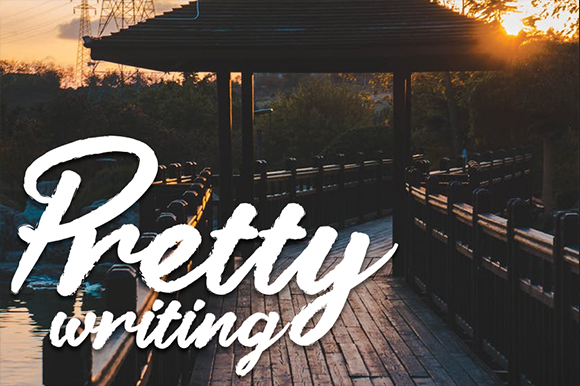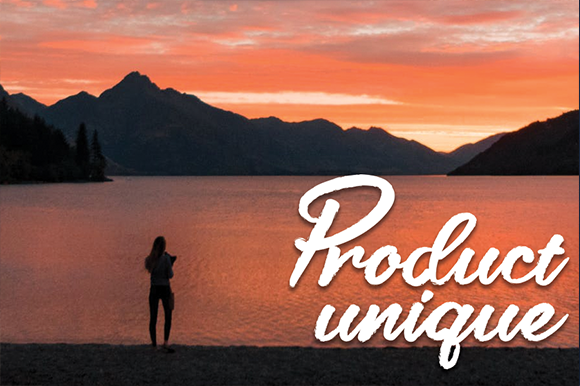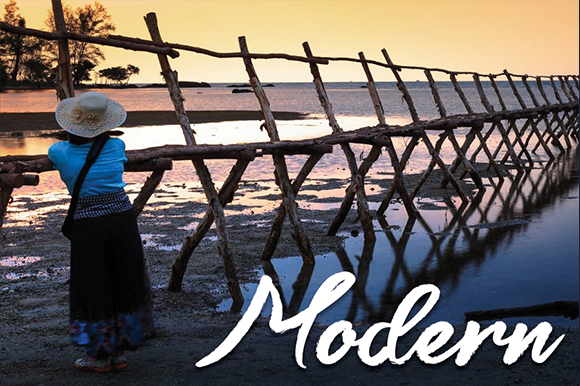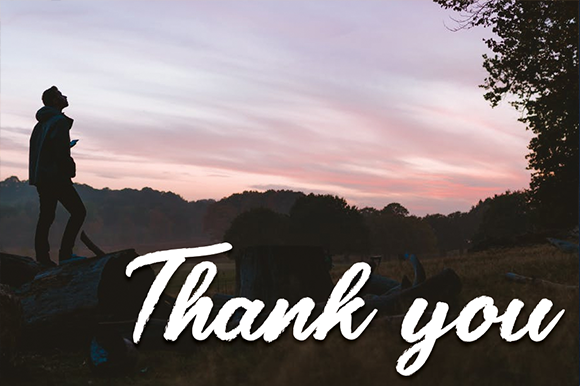
Introducing Brush Womens Font: The Perfect Blend of Casual and Quirky
Are you a designer or crafter looking for a font that embodies the perfect blend of casual and quirky? Look no further than Brush Womens Font! This delightful display font, created using a brush pen, is sure to add a touch of personality to your logos, branding, social media, and DIY projects.
What Makes Brush Womens Font So Special?
Brush Womens Font is a unique and eye-catching font that is both clean and quirky. Its casual, hand-brushed feel makes it perfect for projects that require a personal touch. Whether you’re creating a logo, social media graphics, or a crafty DIY project, this font is sure to make your work stand out.
Key Features of Brush Womens Font
- Hand-brushed feel: Brush Womens Font is created using a brush pen, giving it a unique, hand-crafted feel that is perfect for adding a personal touch to your projects.
- Clean and quirky: This font is both clean and quirky, making it perfect for projects that require a balance of sophistication and playfulness.
- Display font: Brush Womens Font is a display font, making it perfect for headlines, titles, and other attention-grabbing elements.
- Versatile: This font is versatile and can be used for a wide range of projects, from logos and branding to social media graphics and DIY projects.
Brush Womens Font is perfect for designers and crafters who want to add a personal touch to their projects. Whether you’re creating a logo for a client or working on a personal DIY project, this font is sure to inspire your creativity.
Use Brush Womens Font for:
- Logos and branding: Use Brush Womens Font to create a unique and eye-catching logo that reflects your brand’s personality.
- Social media graphics: Add a touch of personality to your social media graphics with Brush Womens Font.
- DIY projects: Use Brush Womens Font to add a personal touch to your DIY projects, such as handmade cards, invitations, and crafts.
- Crafting and scrapbooking: Brush Womens Font is perfect for crafters and scrapbookers who want to add a personal touch to their projects.
Tips for Using Brush Womens Font
Here are a few tips for using Brush Womens Font:
- Use it sparingly: Brush Womens Font is a display font, so use it sparingly to add emphasis to your text.
- Pair it with a simple font: Pair Brush Womens Font with a simple font to create a balanced look.
- Experiment with colors: Brush Womens Font looks great in a variety of colors, so don’t be afraid to experiment and find the perfect color for your project.